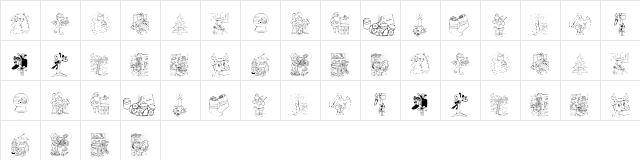
KR Color Me Christmas 2002 Regular
Design Context for KR Color Me Christmas 2002 Typeface
KR Color Me Christmas 2002 is a composed and adaptable typeface that performs quietly and consistently across a wide range of design contexts.